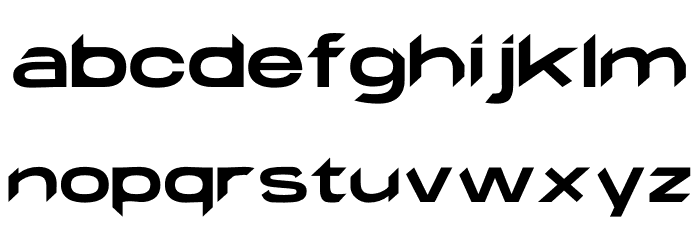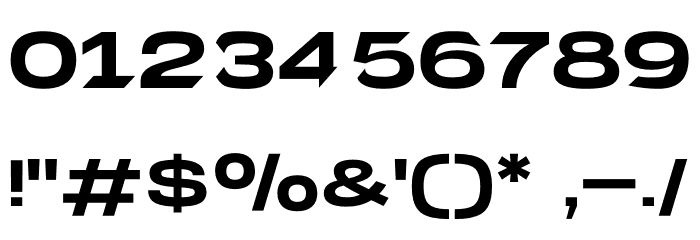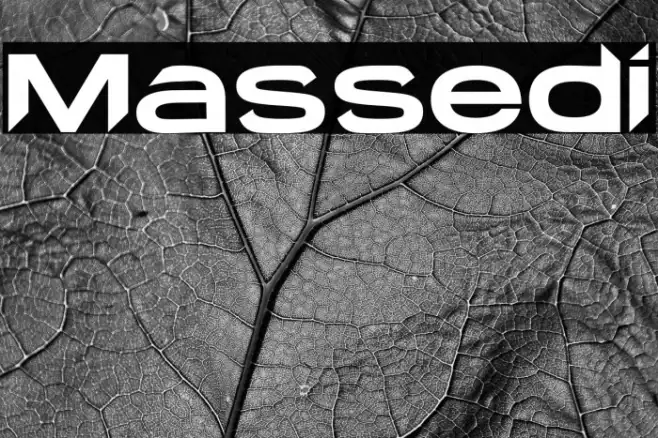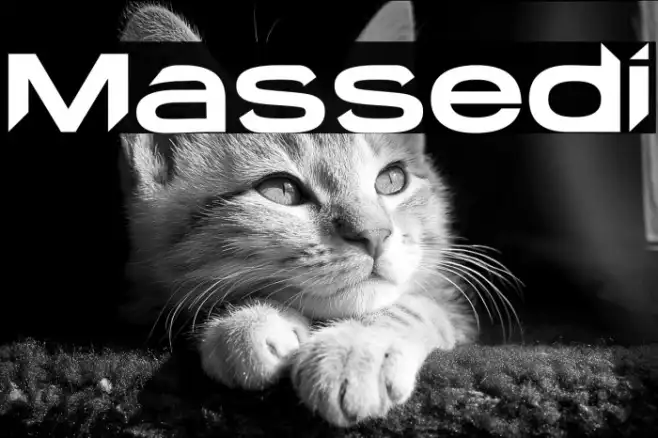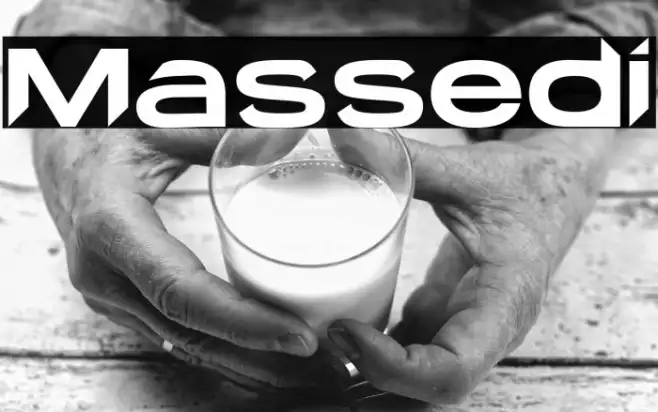
Massedi Font
This font features a bold and futuristic design with sharp, angular edges and a distinct geometric style. The uppercase letters are particularly striking, with unique cuts and angles that give them a dynamic and aggressive appearance. The lowercase letters maintain a consistent style, offering a cohesive look across the alphabet. Numbers and special characters are designed with the same boldness and angularity, making them stand out. The overall aesthetic is modern and edgy, suitable for projects that require a strong visual impact.
A bold, futuristic font with sharp, angular edges and a geometric style.
- Proposed Projects: Ideal for sci-fi themed designs, technology branding, video game titles, and modern posters.